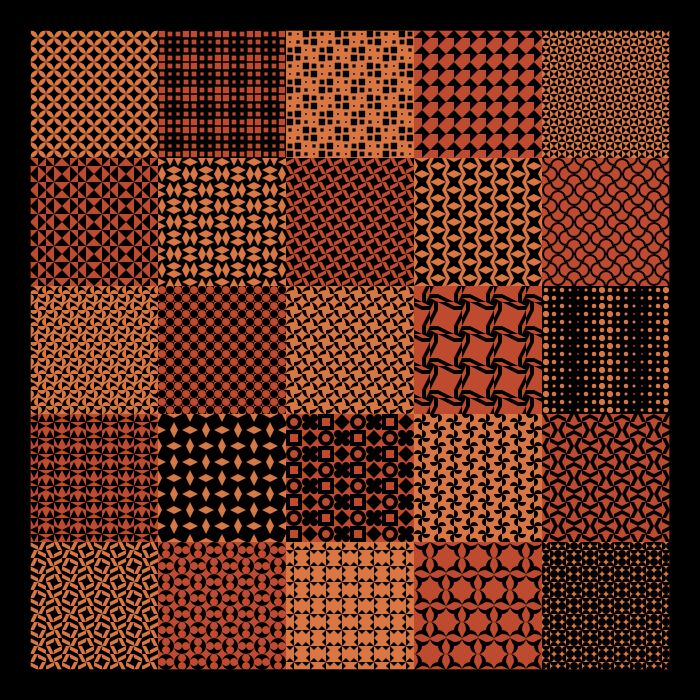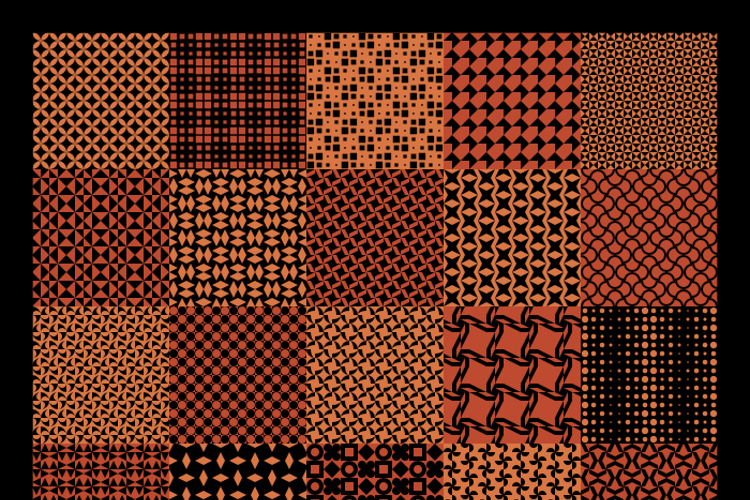
Gremlin Skins HD Font
by Pixel Kitchen
An experimental font made for texturing and patterning things. Every glyph repeats as a seamless texture in both directions. I made this early in my font-making days, so the patterns are a bit simple. I still hope others find it useful, as I have!